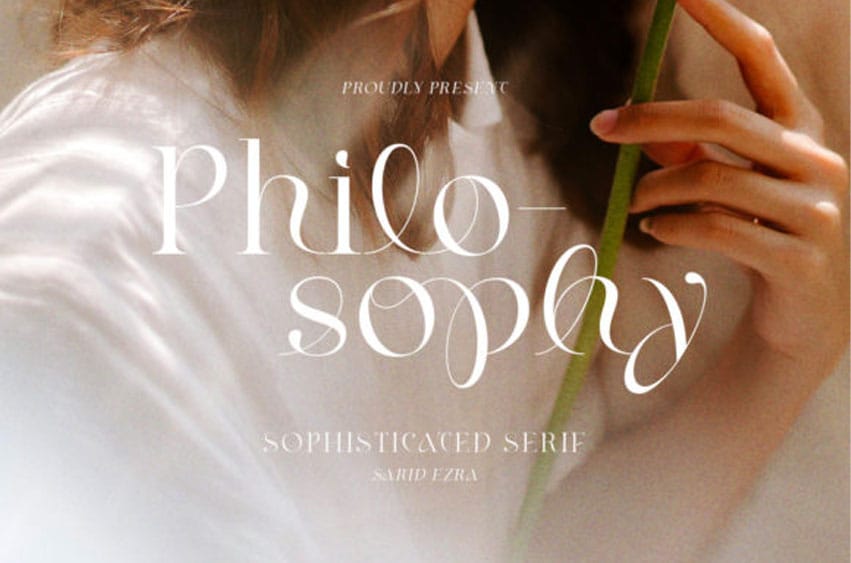
Philosophy Font is an elegant and stylish serif font.
It works well on luxurious designs, wedding invitations, and pretty much anything that requires distinct vibes.